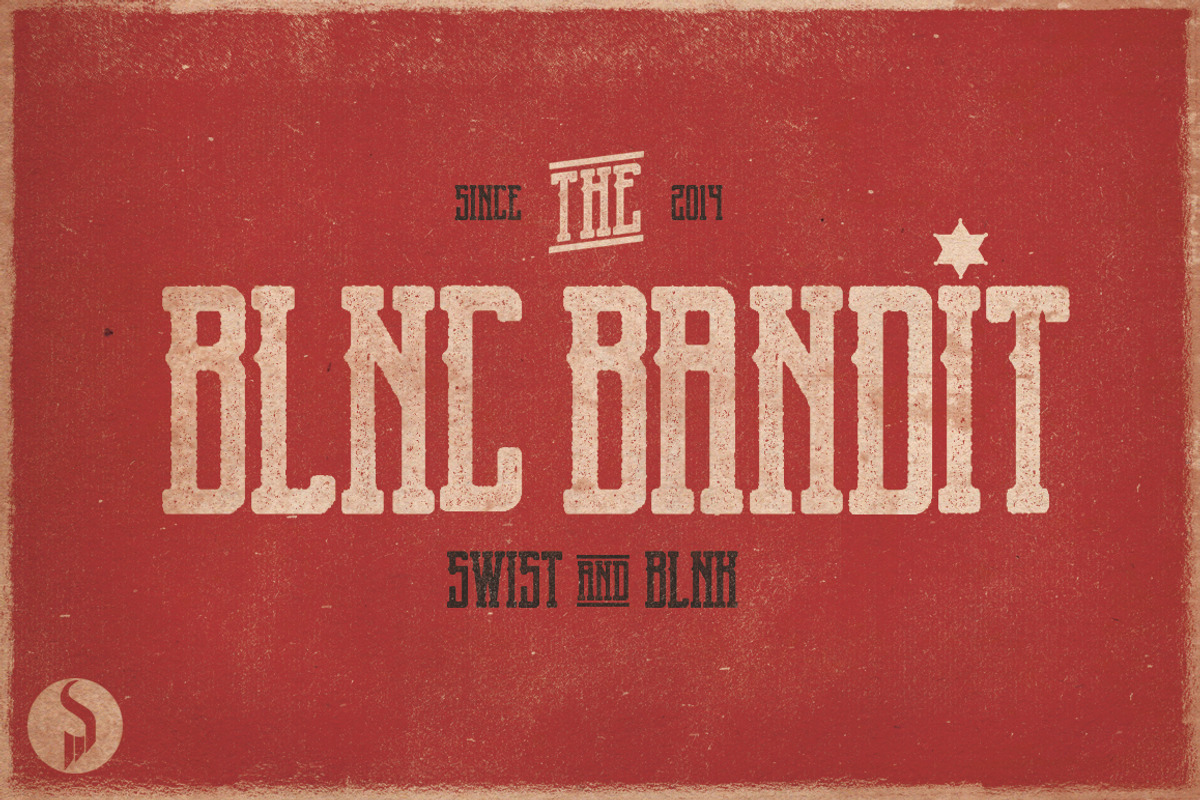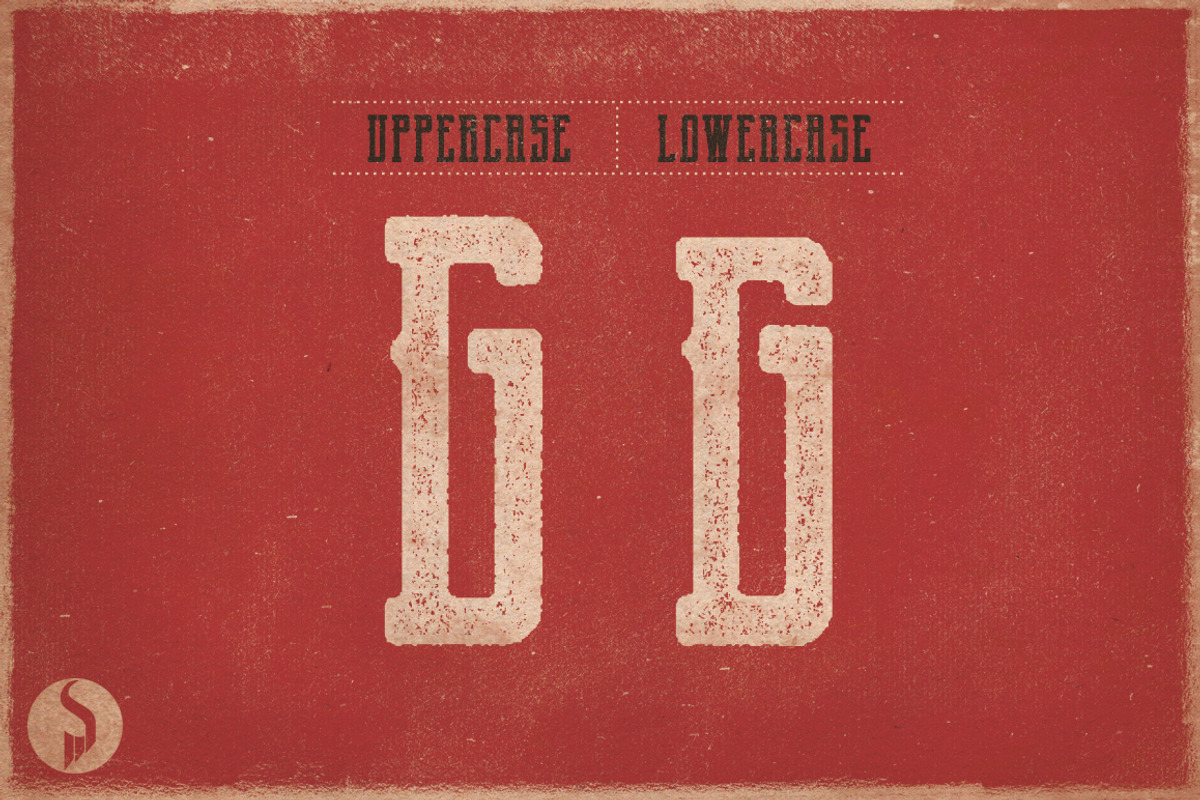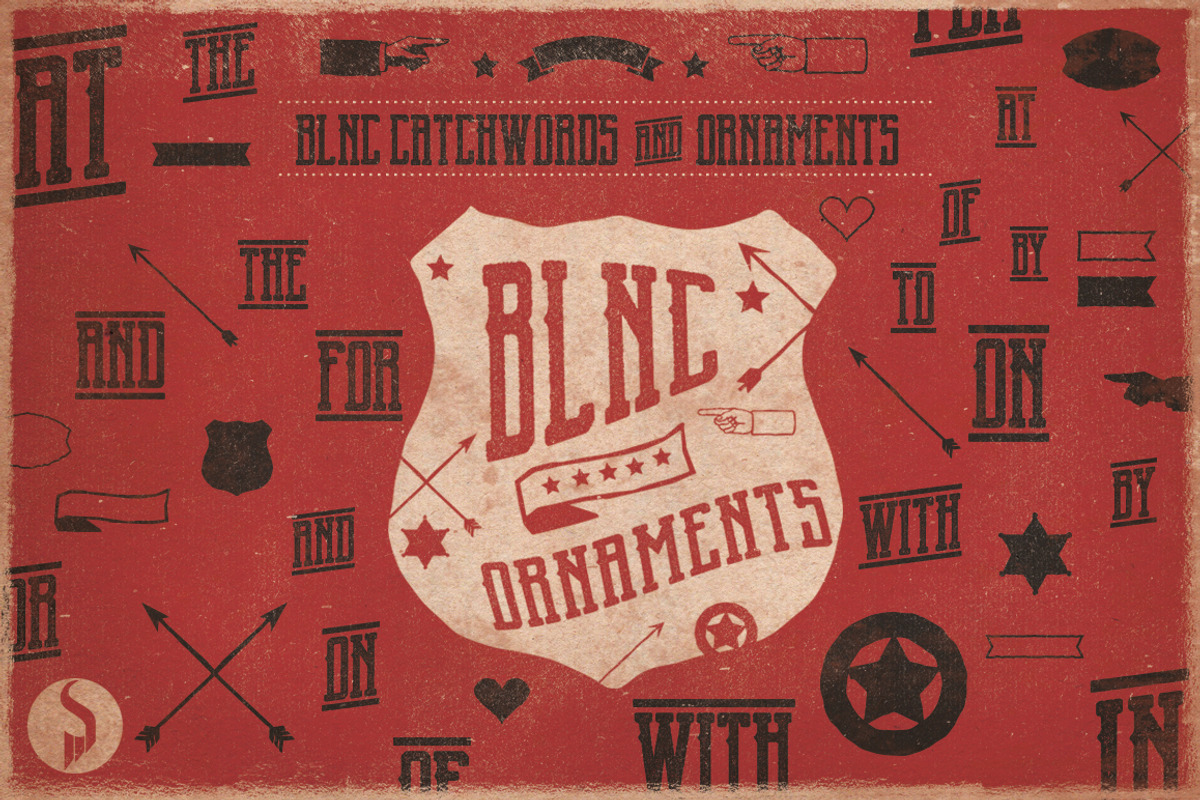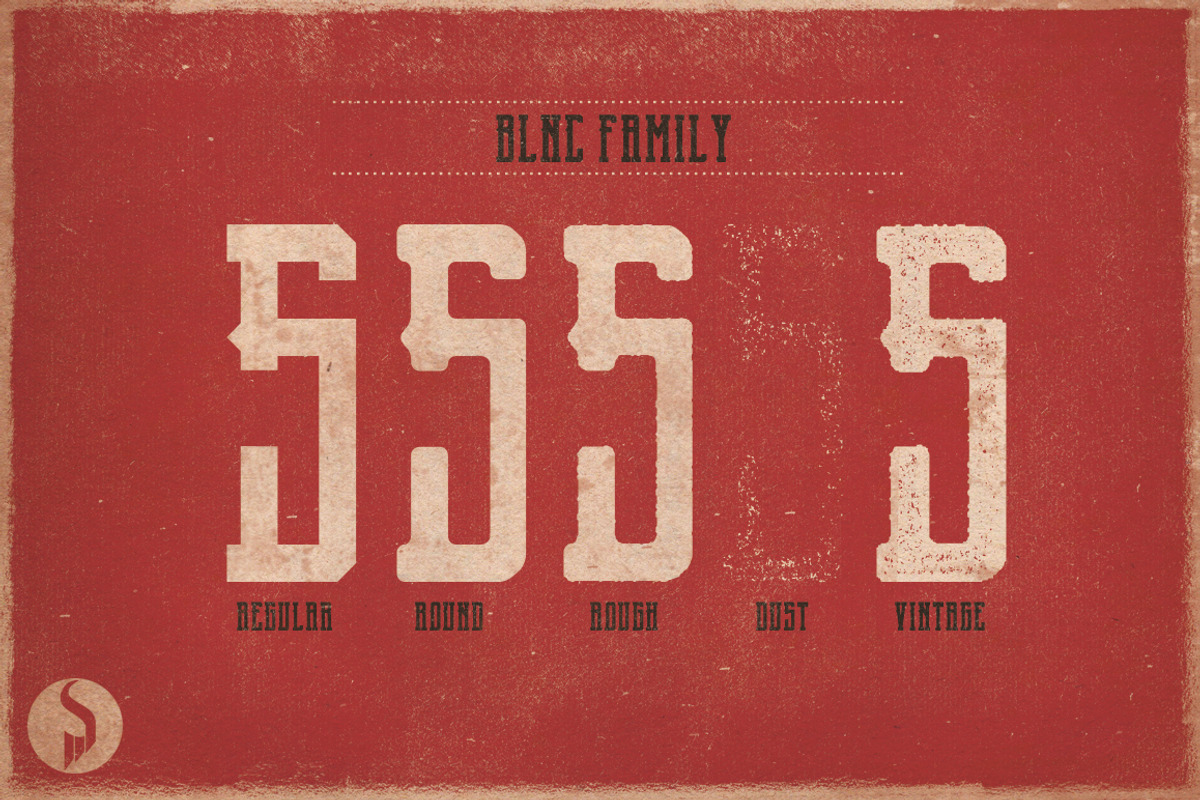
Blnc Family Typeface
Blnc Family Typeface by Swistblnk Std. is a font selected for branding, posters, packaging, typography.
Why Blnc Family Typeface is worth a look
Blnc Family Typeface by Swistblnk Std. fits naturally into Branding, posters, packaging, typography.